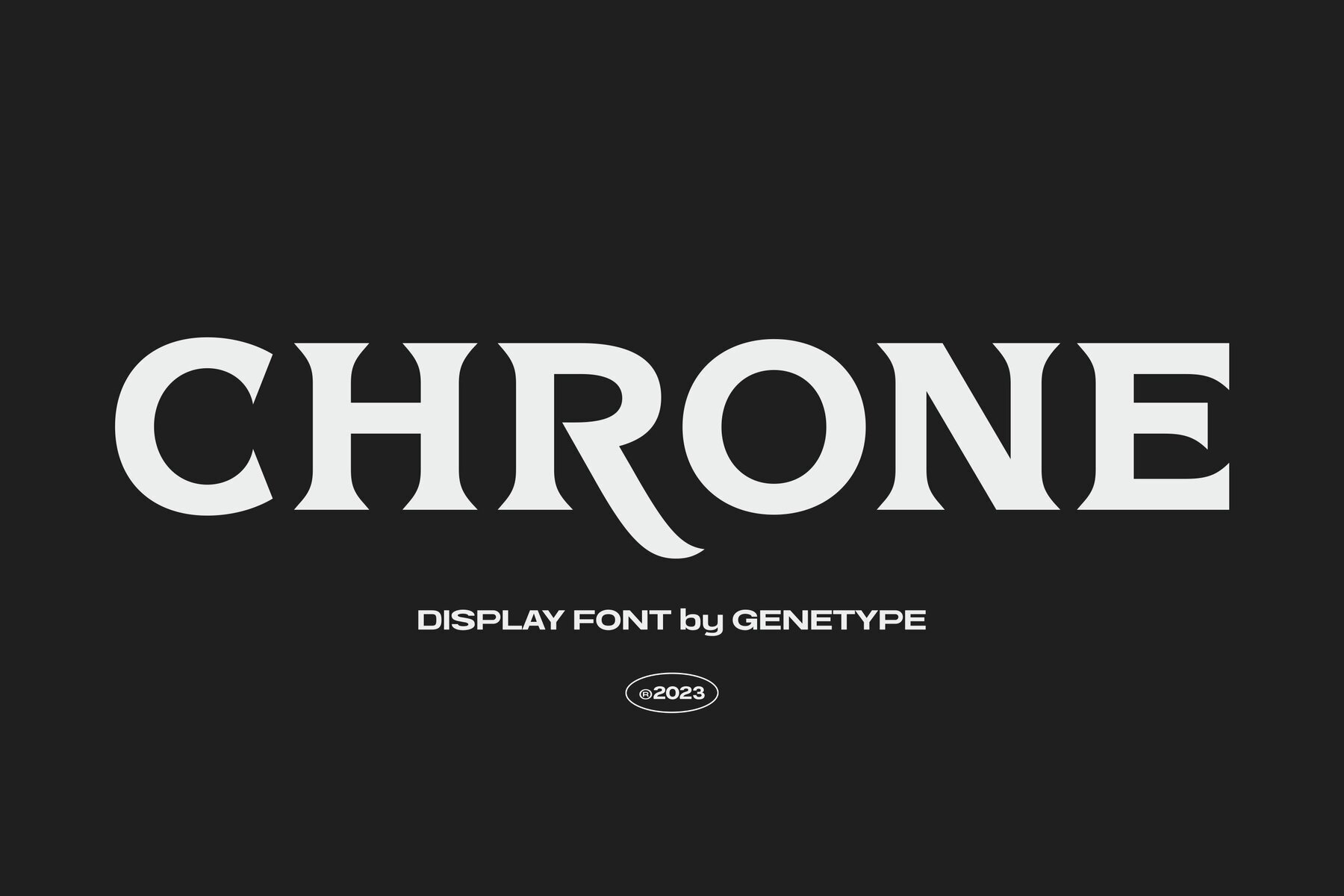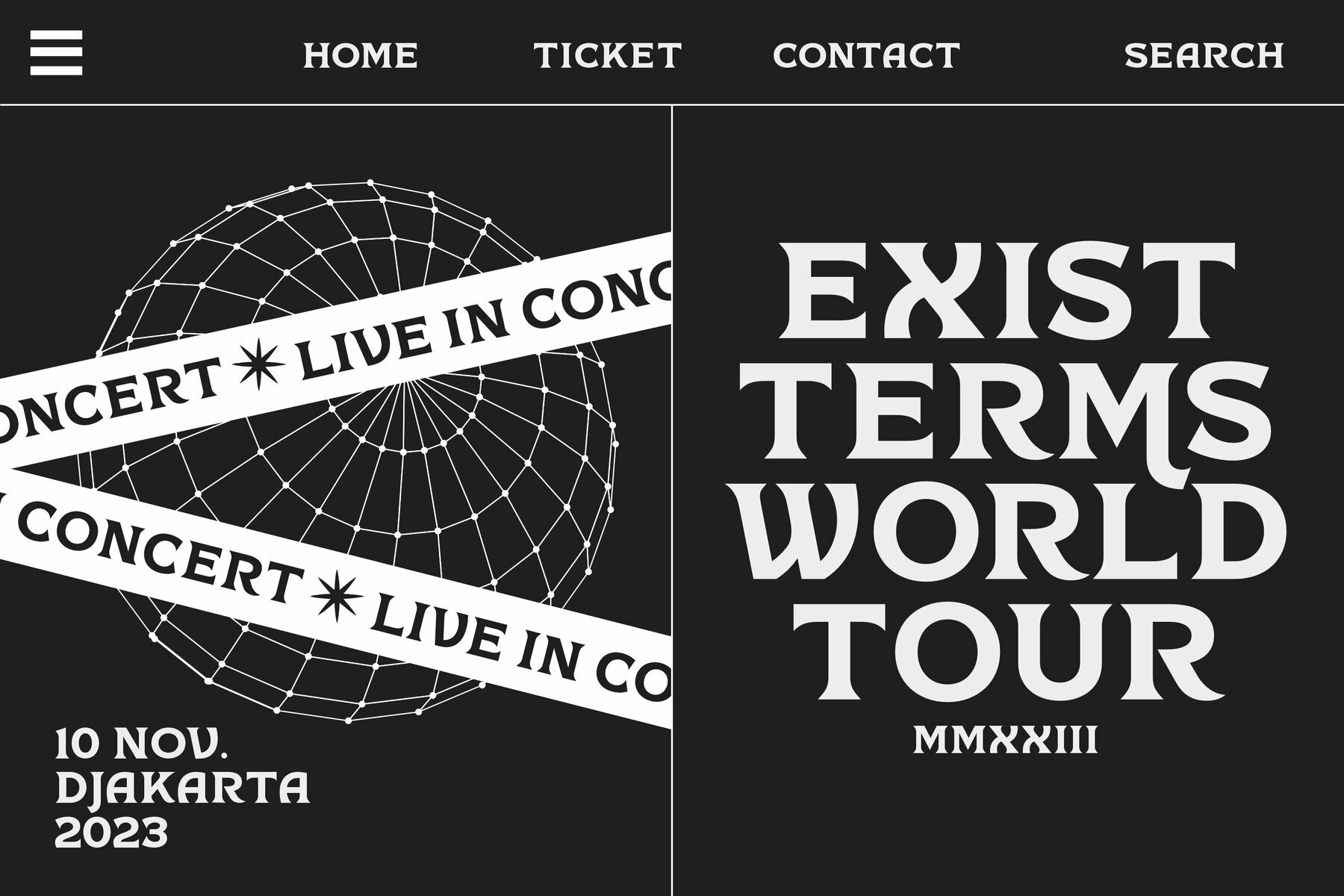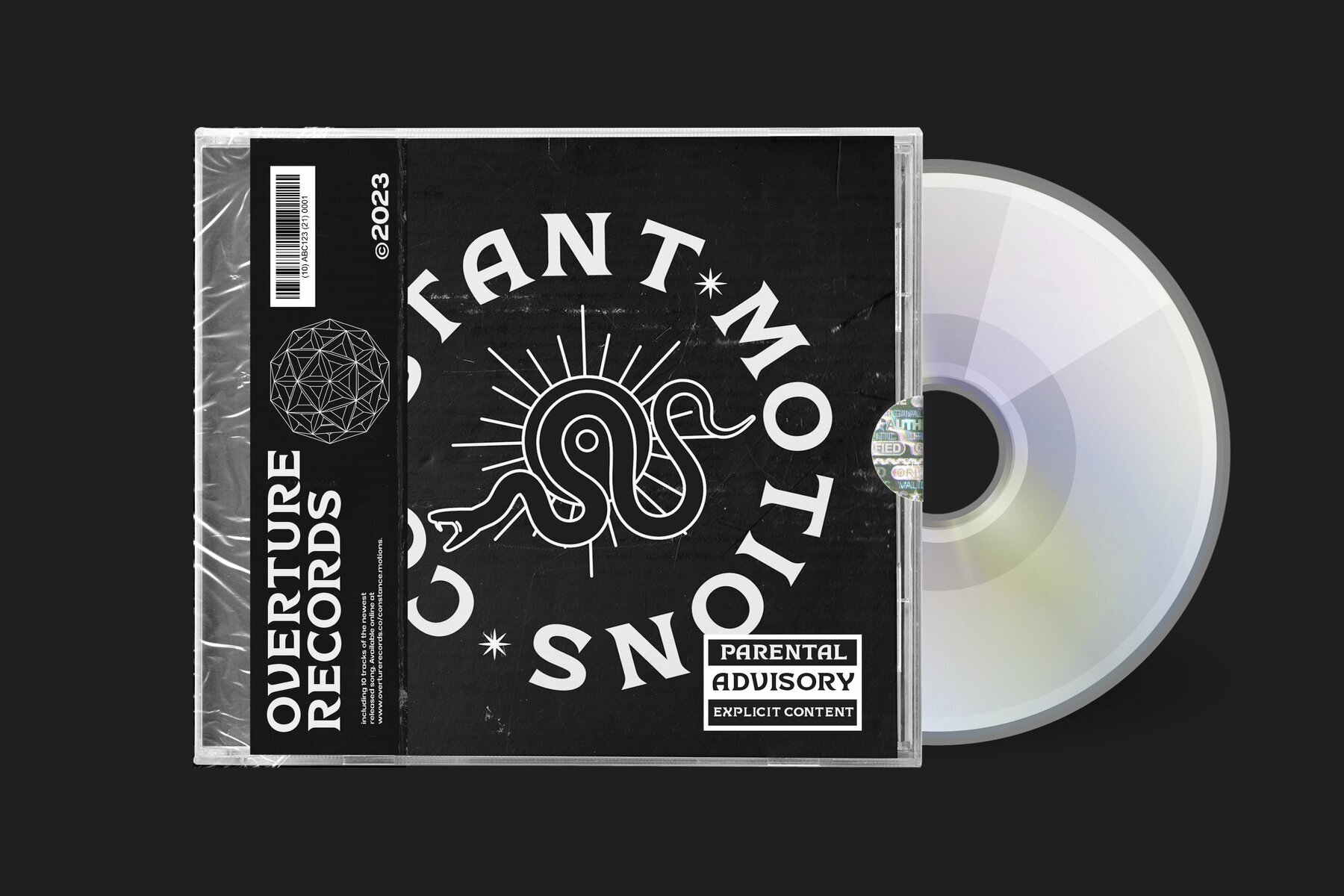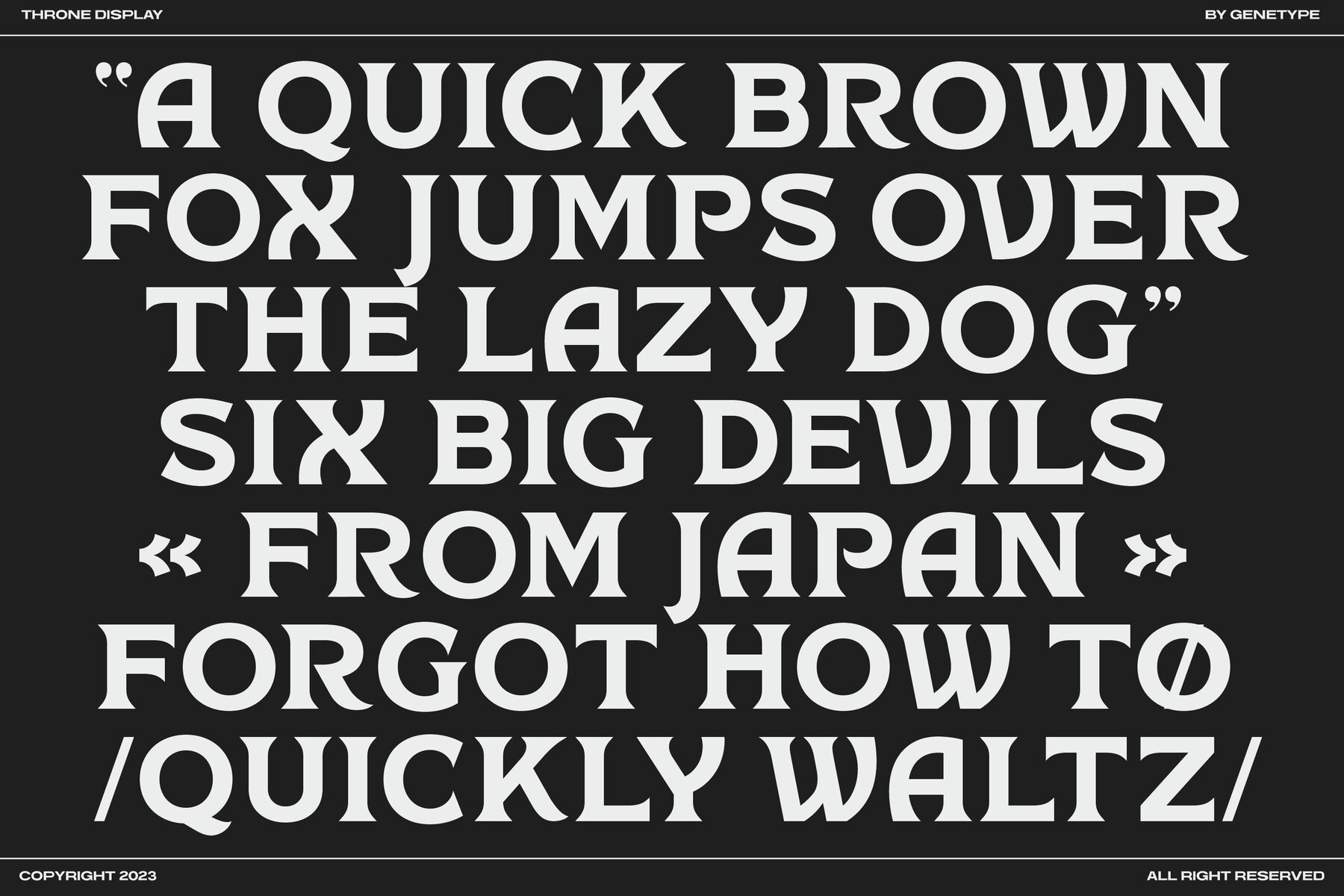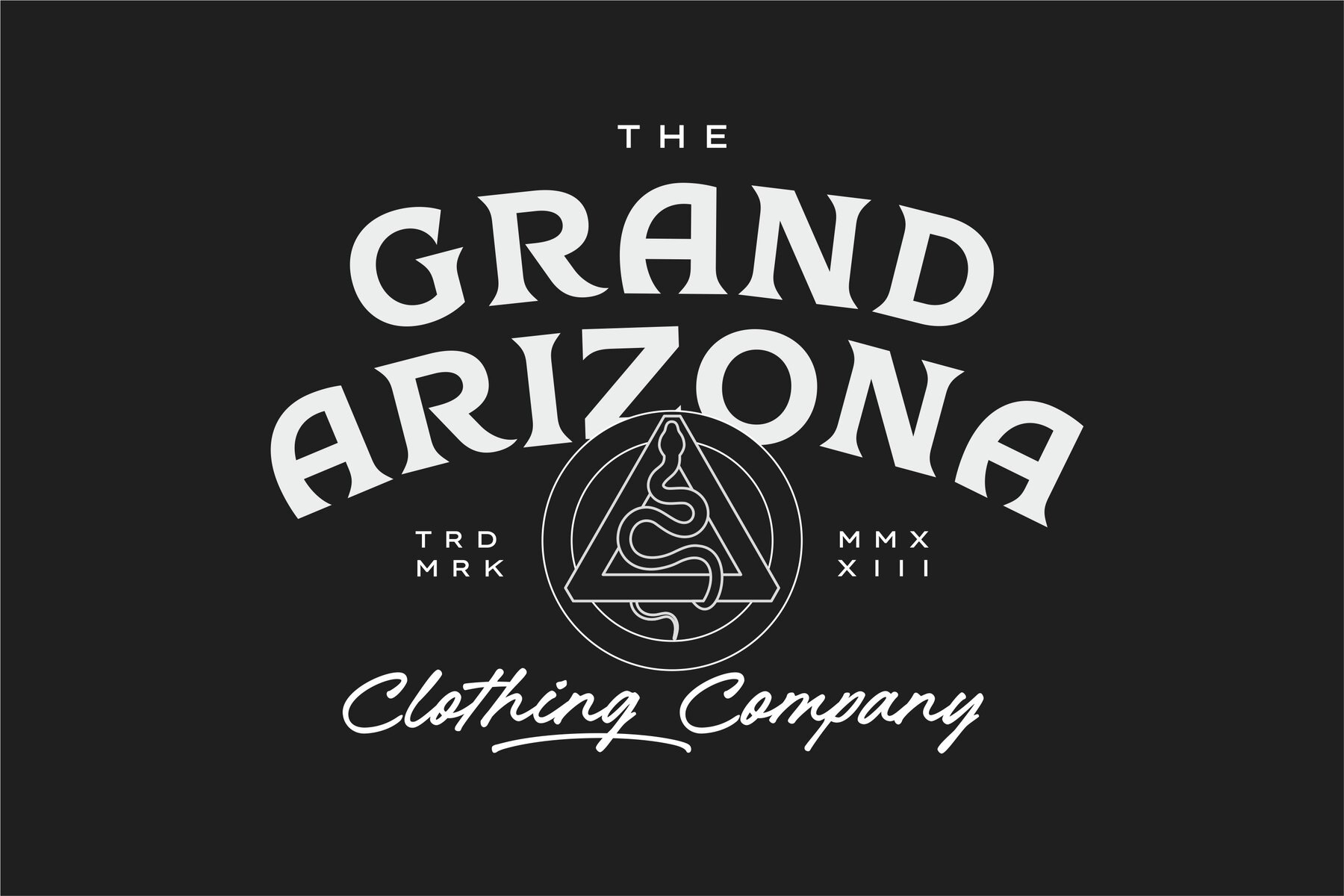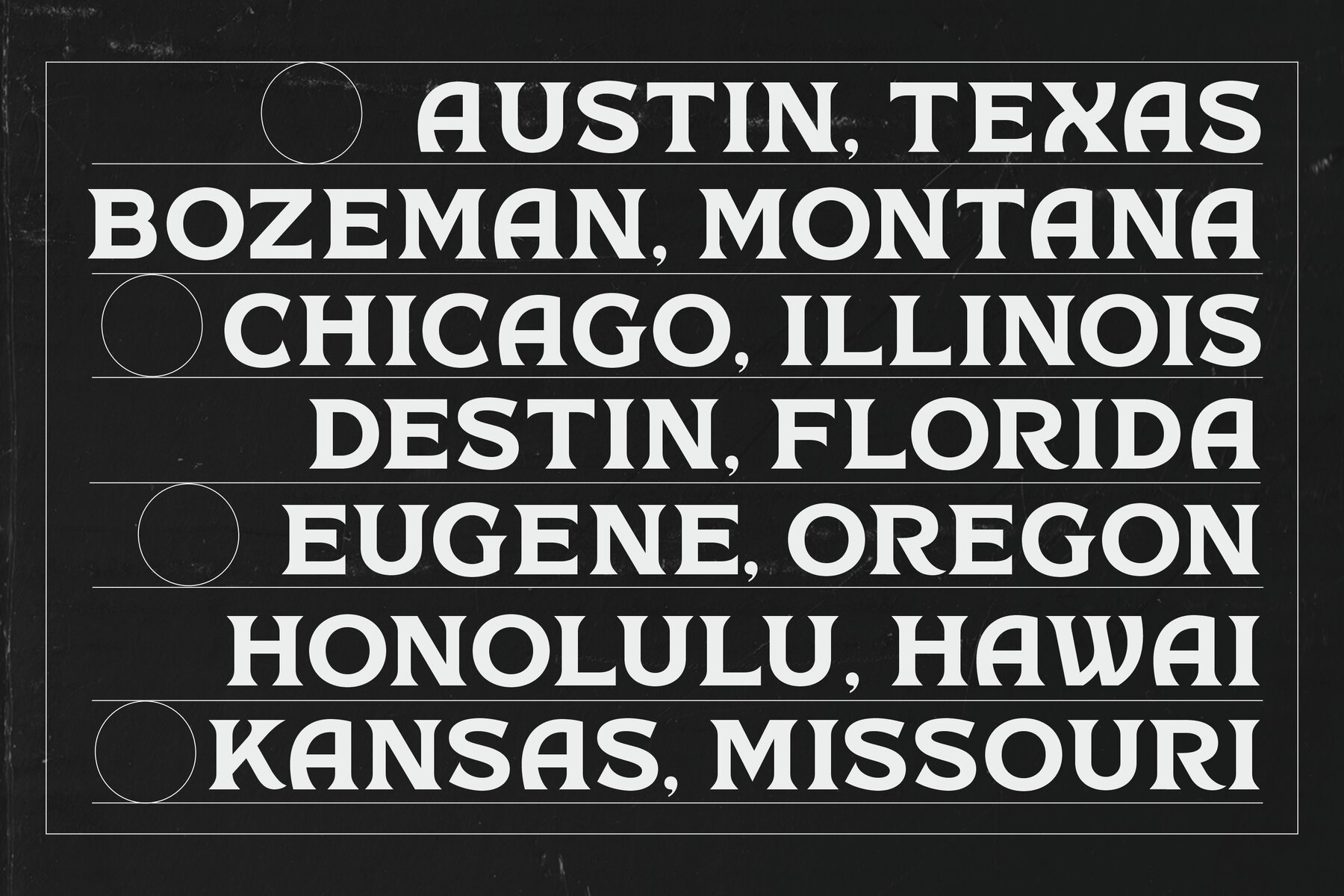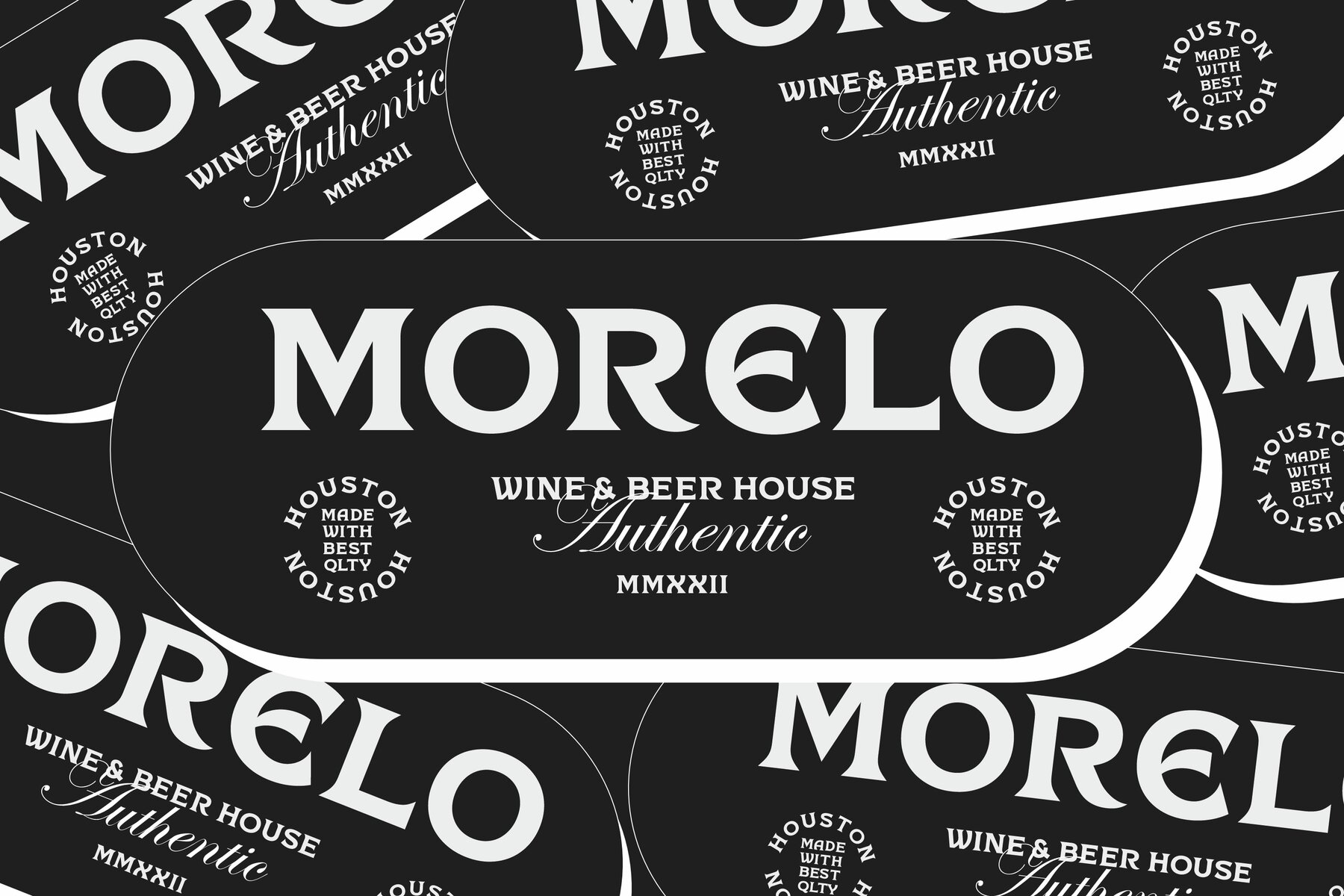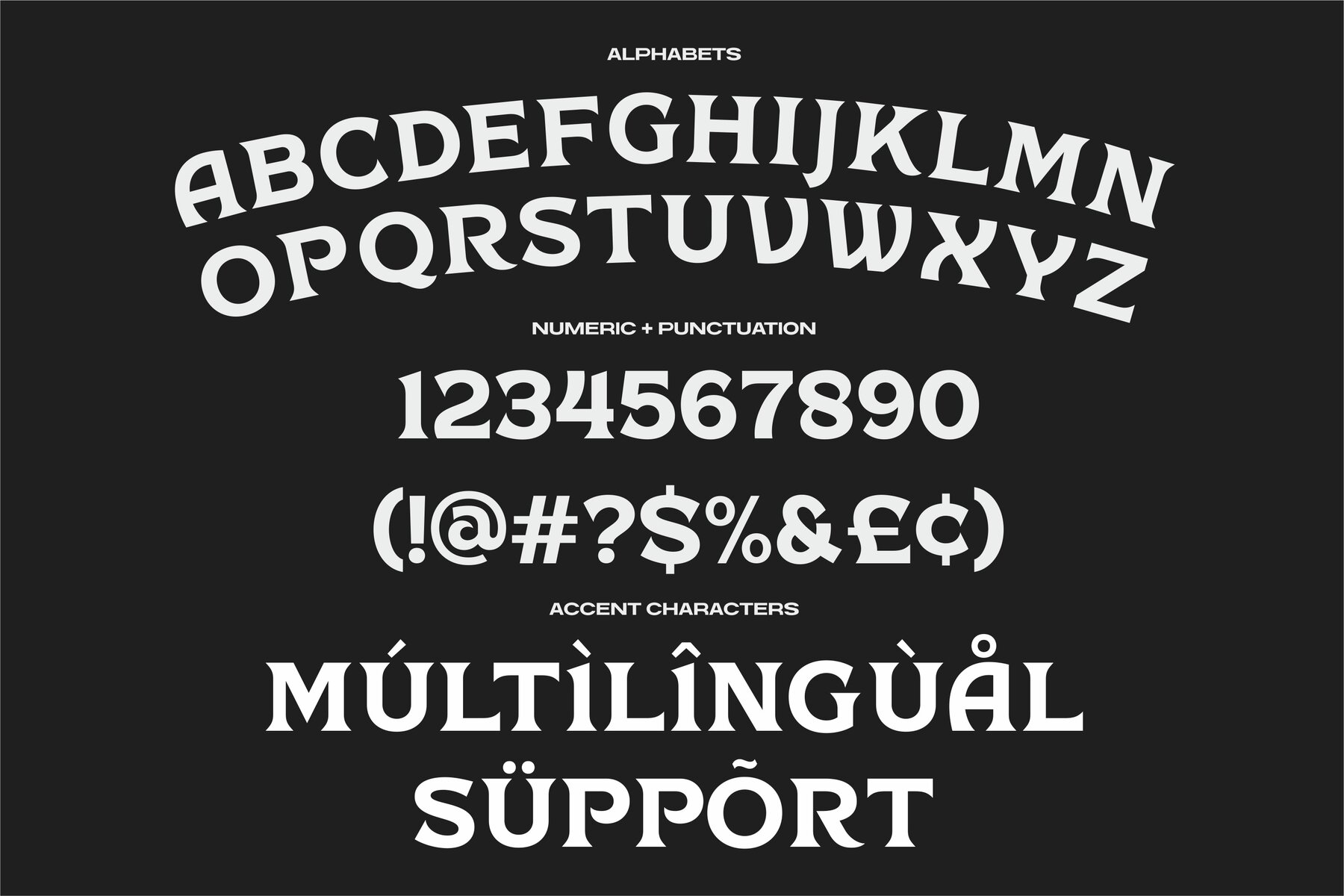
Chrone Font
Chrone Regular
Discover Chrone Serif Typeface: a paradigm of masculine sophistication. Designed to embody strength and refinement, Chrone Serif is ideal for commanding headlines and timeless logos. Its bold serifs exude confidence and poise, making it perfect for prominent, impactful designs.
Whether crafting compelling headlines or creating iconic logos, Chrone Serif adds a touch of masculine charm to any project. Explore the powerful elegance of Chrone Serif and make a bold statement in your design work.